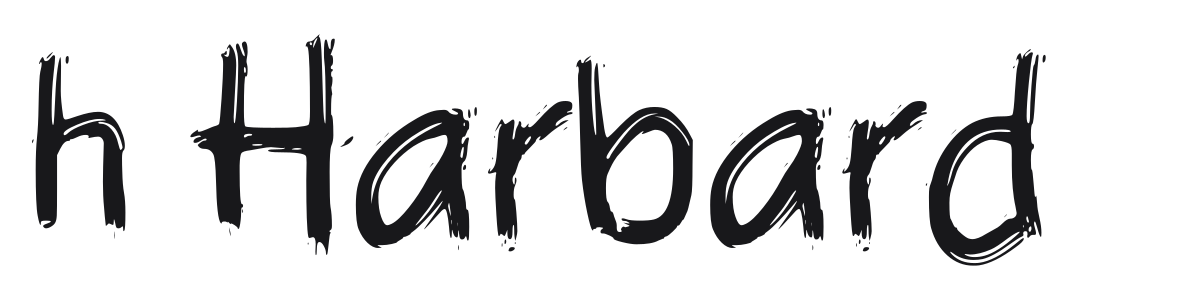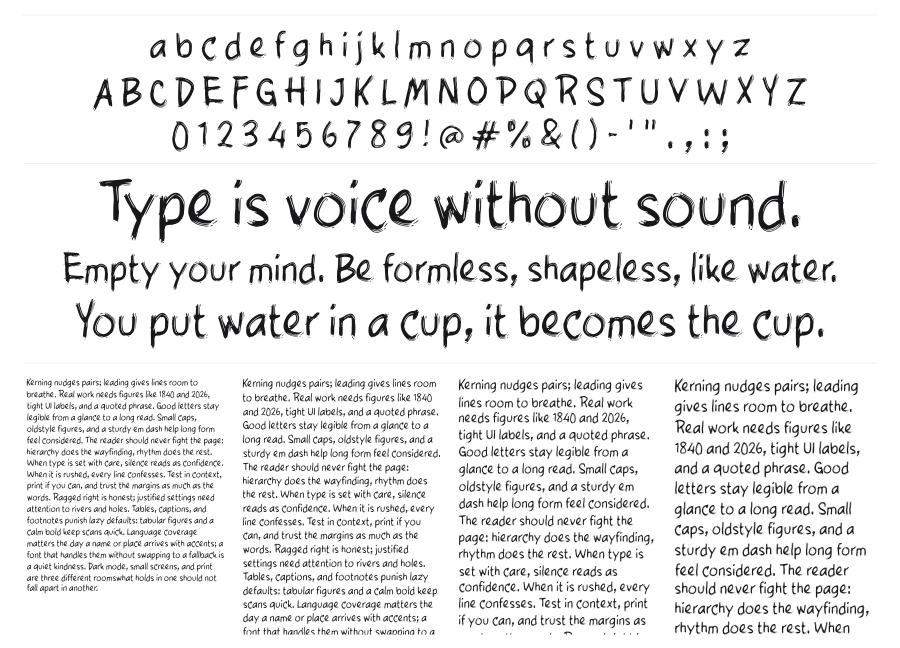
h Harbard
Harbard is a rough brush script with a loose, hand-painted energy and visible bristle texture throughout. Each character feels drawn in a single confident stroke, with frayed edges and a slightly wobbly baseline that keeps the whole thing feeling alive. It suits anywhere authenticity and a handcrafted edge matter more than polish.